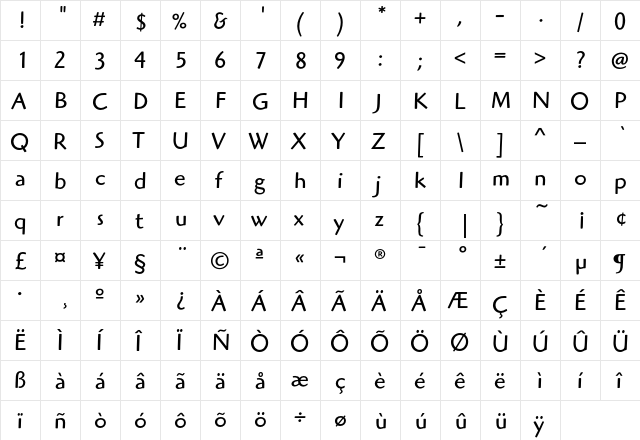
HighlanderEF Book
Design Context for HighlanderEF Typeface
HighlanderEF offers clean, dependable letterforms without strong stylistic allegiance, making it a practical choice for designers who need flexibility.